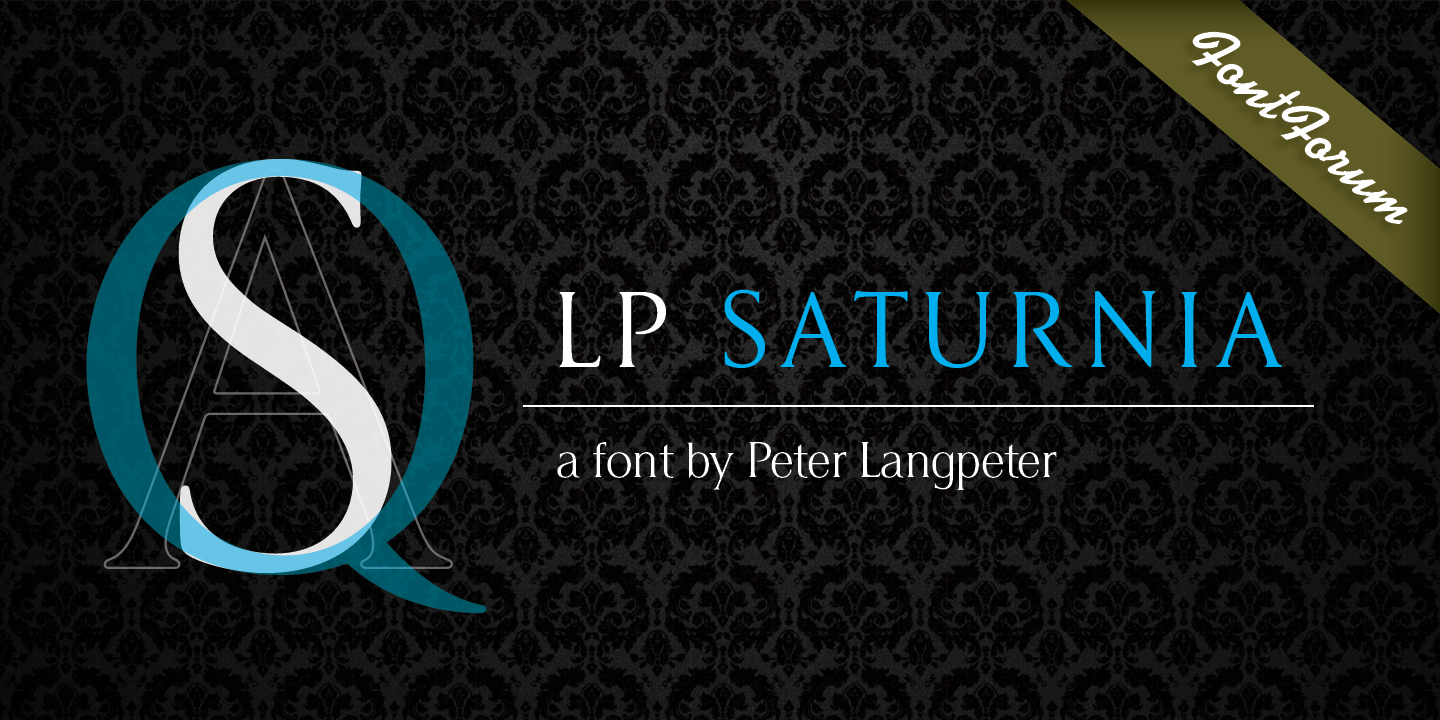
LP Saturnia Font Free Download is a sleek and elegant serif typeface that combines modern design with classic sophistication. Inspired by the mysterious beauty of the cosmos, LP Saturnia brings a timeless charm to your branding, editorial layouts, invitations, and luxury packaging.
Its refined strokes and graceful curves offer excellent readability while adding a touch of celestial elegance to your text. LP Saturnia Font Free Download is perfect for designers who want to evoke a sense of wonder and style in their projects.
Elevate your designs with the cosmic allure of LP Saturnia Font Free Download. Whether you’re working on fashion, lifestyle, or high-end branding, this font brings stellar sophistication to every letter.